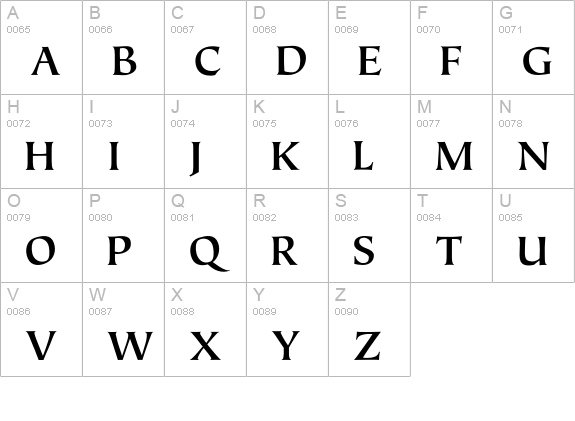
TiepoloICGBold Font Details
TiepoloICGBold font is a stunning and sophisticated typeface that exudes elegance and professionalism. It is perfect for adding a touch of class to any design project. With its bold and pronounced letterforms, this font demands attention and makes a bold statement. TiepoloICGBold font is meticulously crafted with a keen eye for detail, resulting in a truly exceptional typographic experience. Its thick strokes and strong presence give it a commanding presence on the page, making it ideal for headlines, titles, and branding materials. This font offers a perfect balance between modern aesthetics and traditional charm, making it versatile and suitable for a wide range of applications. Whether you're working on a corporate brochure, a fashion magazine, or a wedding invitation, TiepoloICGBold font will elevate your design and leave a lasting impression. One of the best features of TiepoloICGBold font is that it is freely available to download at FontsMarket.com. You can easily access this font and incorporate it into your projects without any hassle or cost. This makes it a fantastic option for designers on a budget or those who simply appreciate the value of a high-quality font that doesn't break the bank. Don't miss out on the opportunity to enhance your designs with the undeniable beauty and sophistication of TiepoloICGBold font. Download it now from FontsMarket.com and let your creativity soar to new heights.